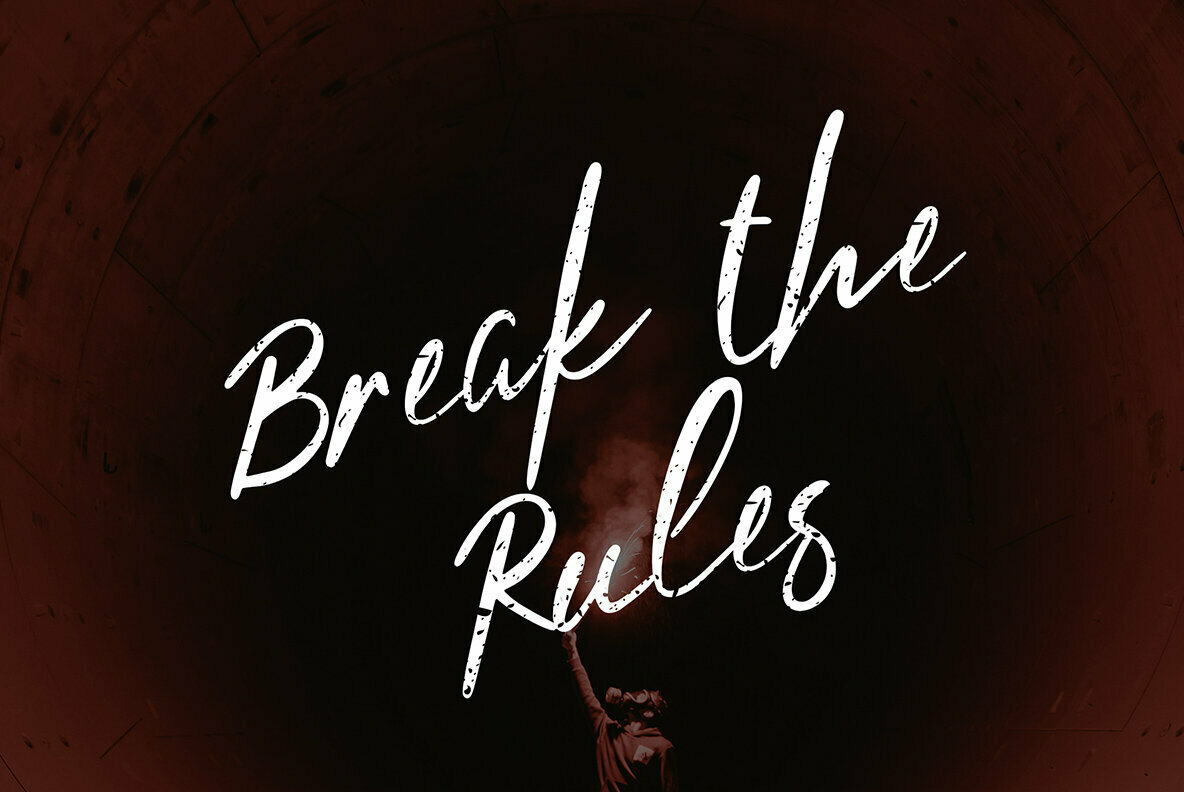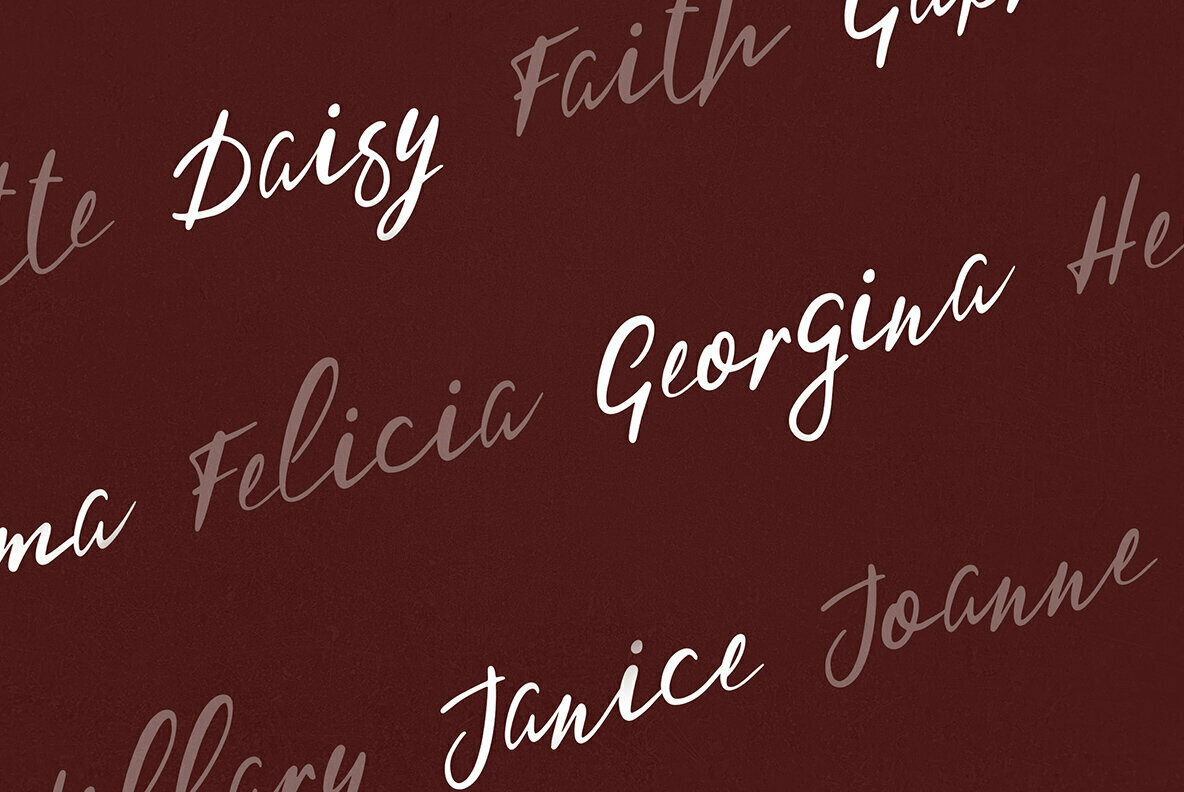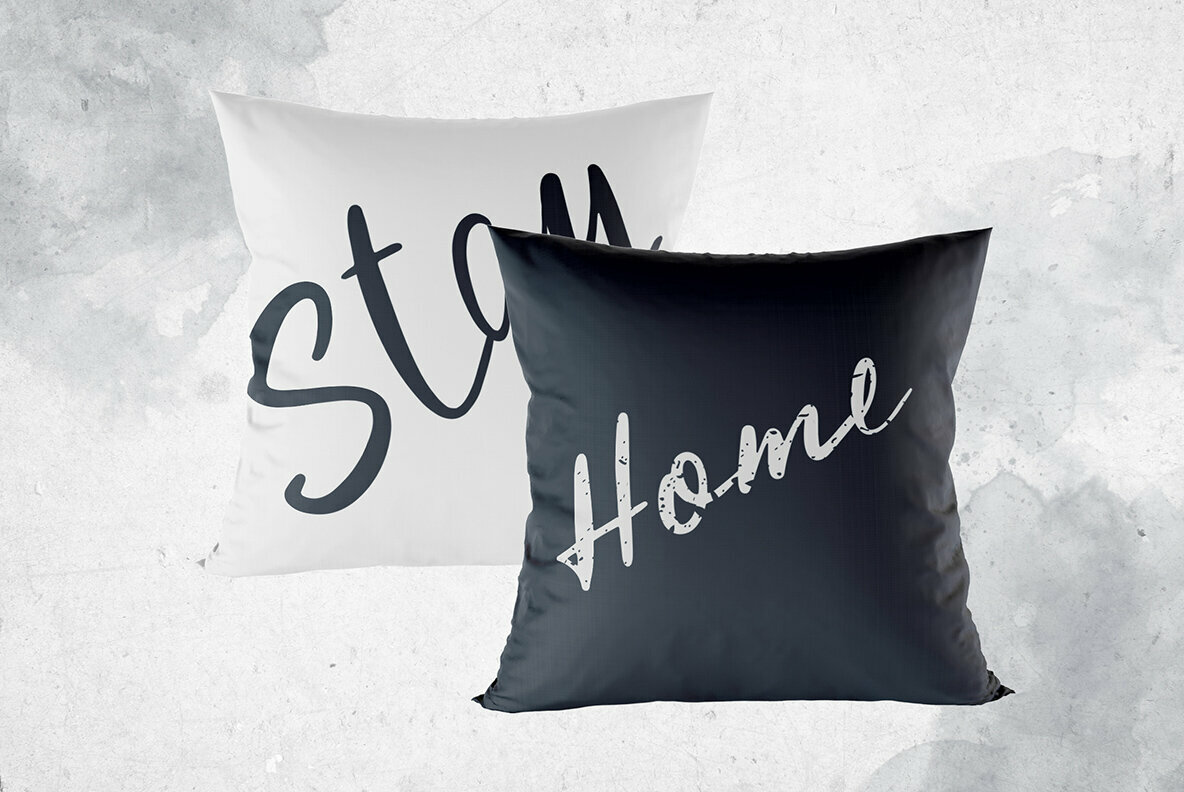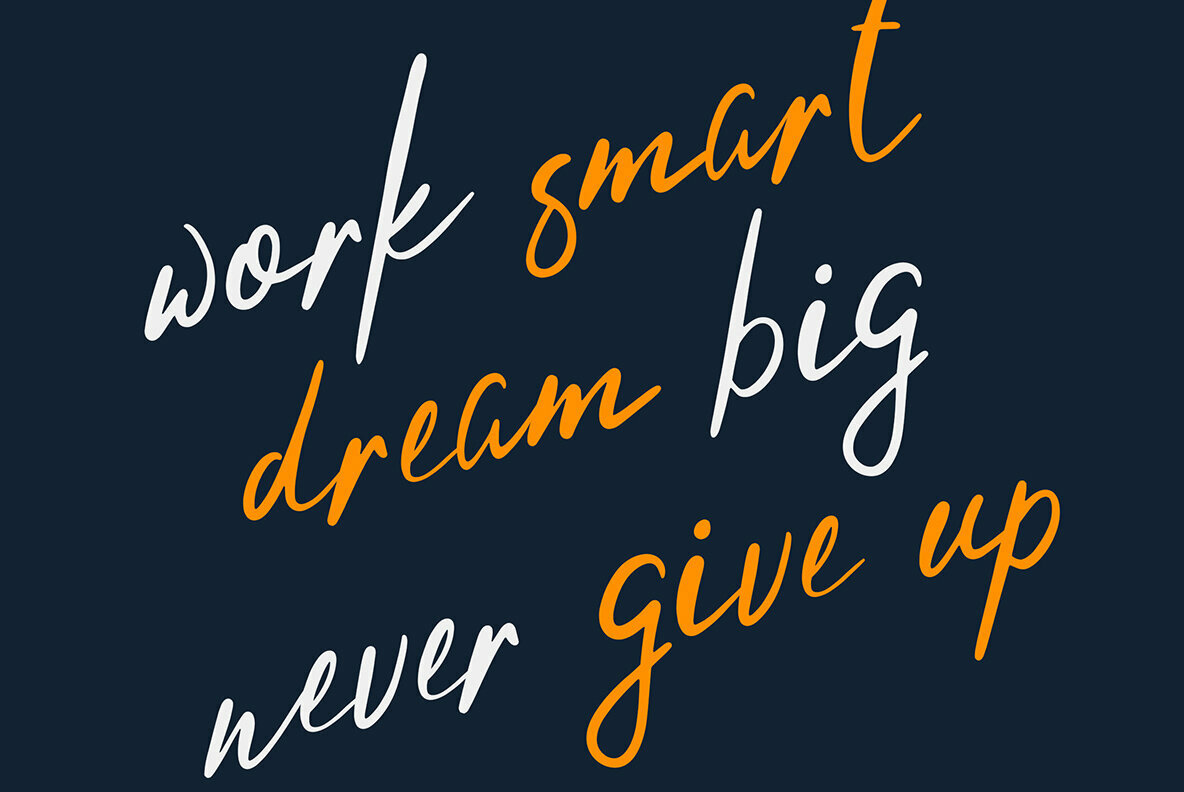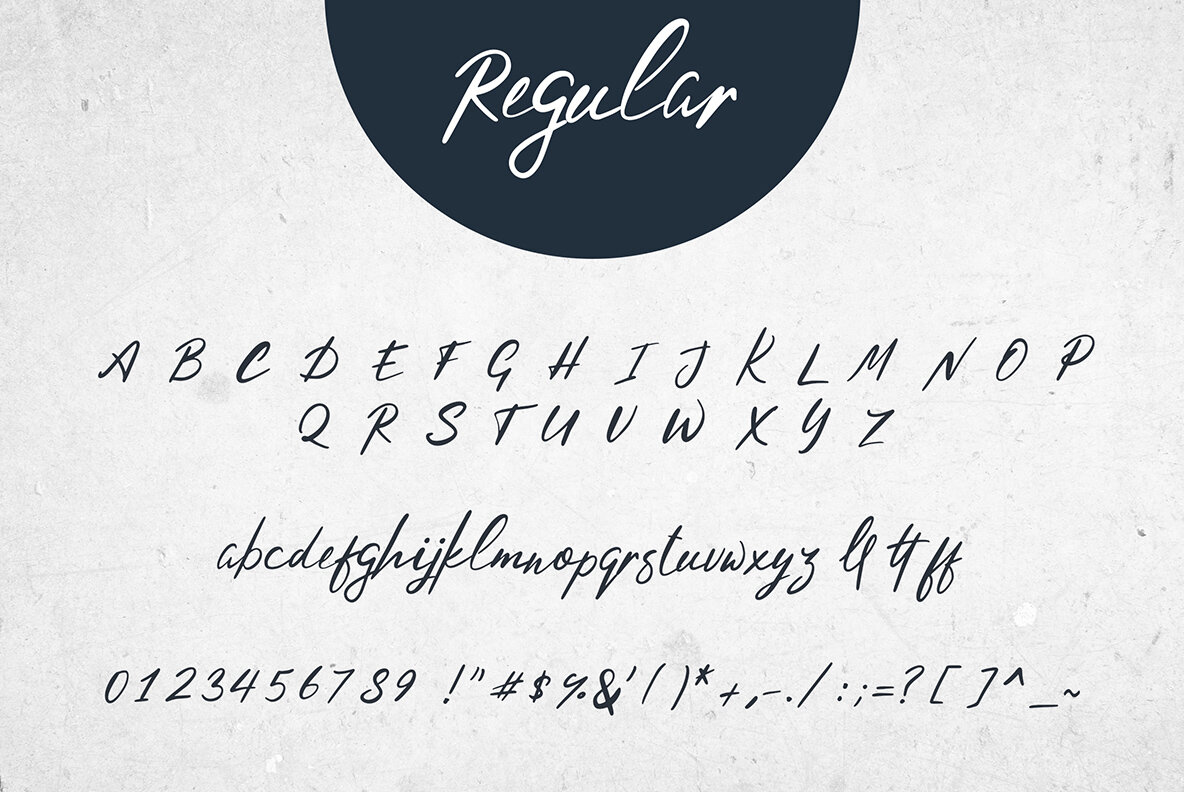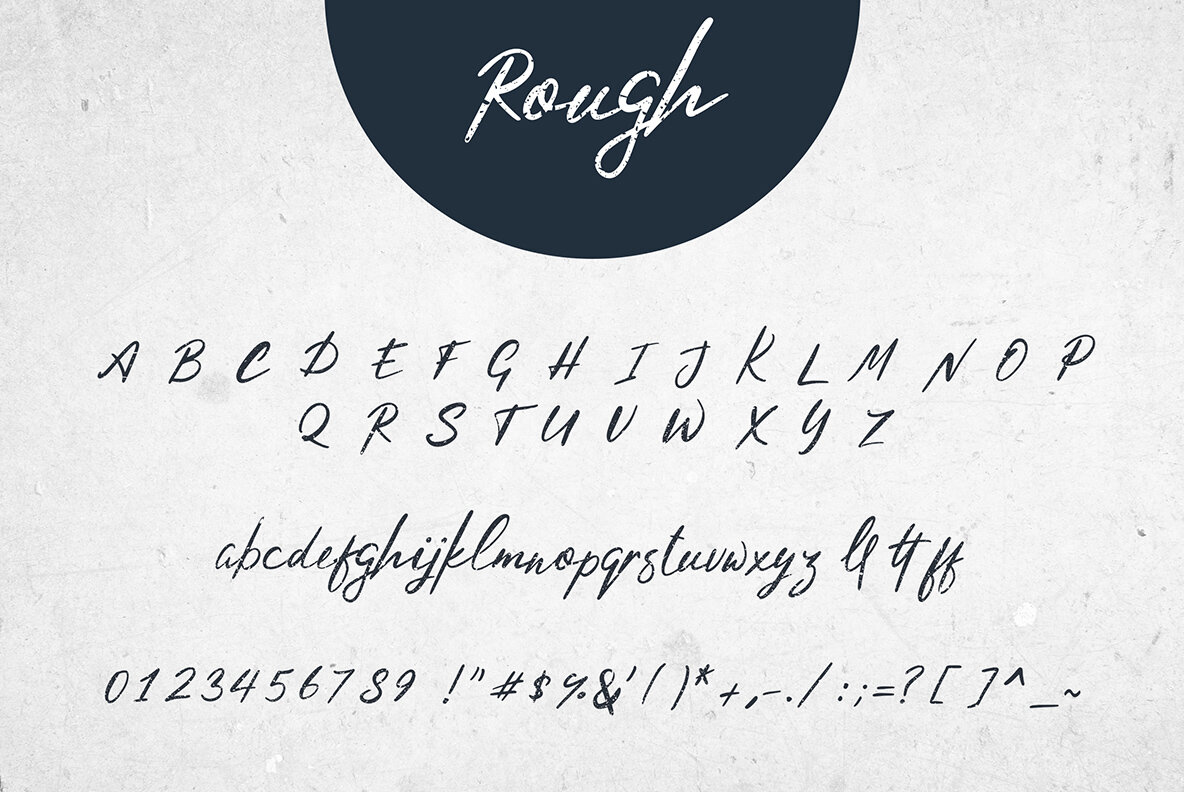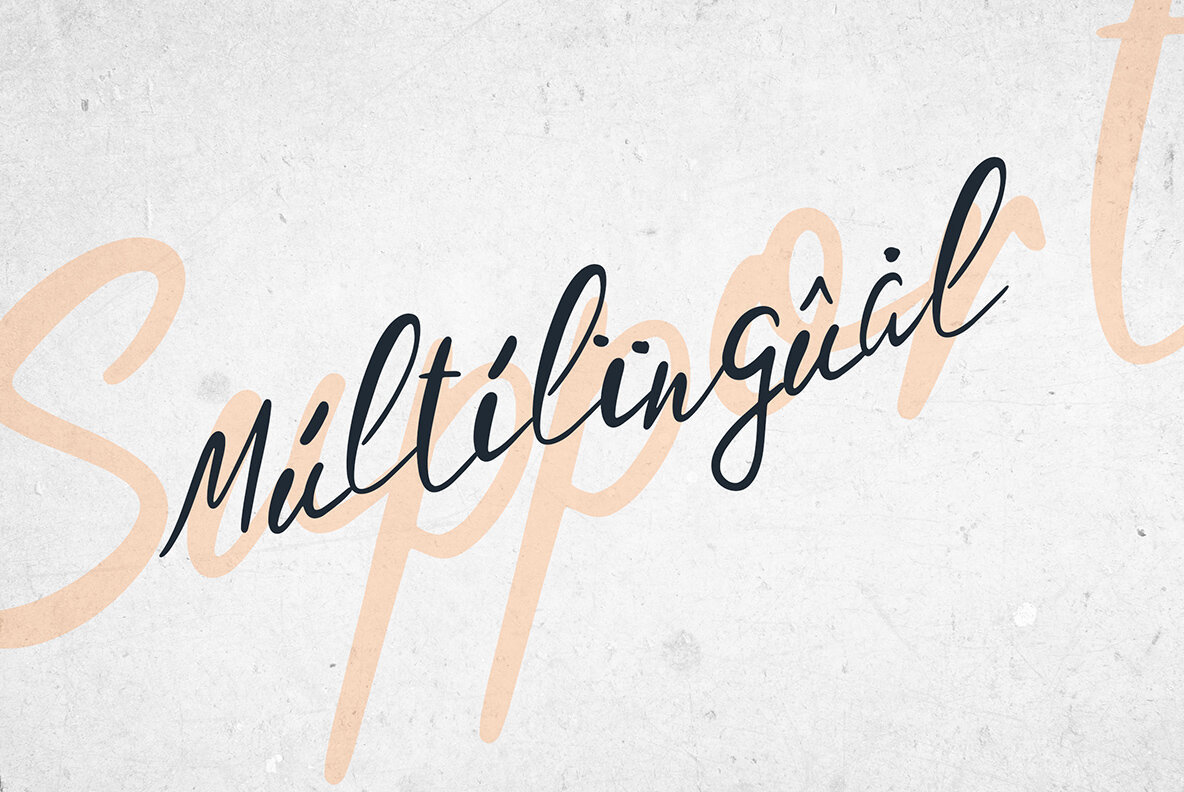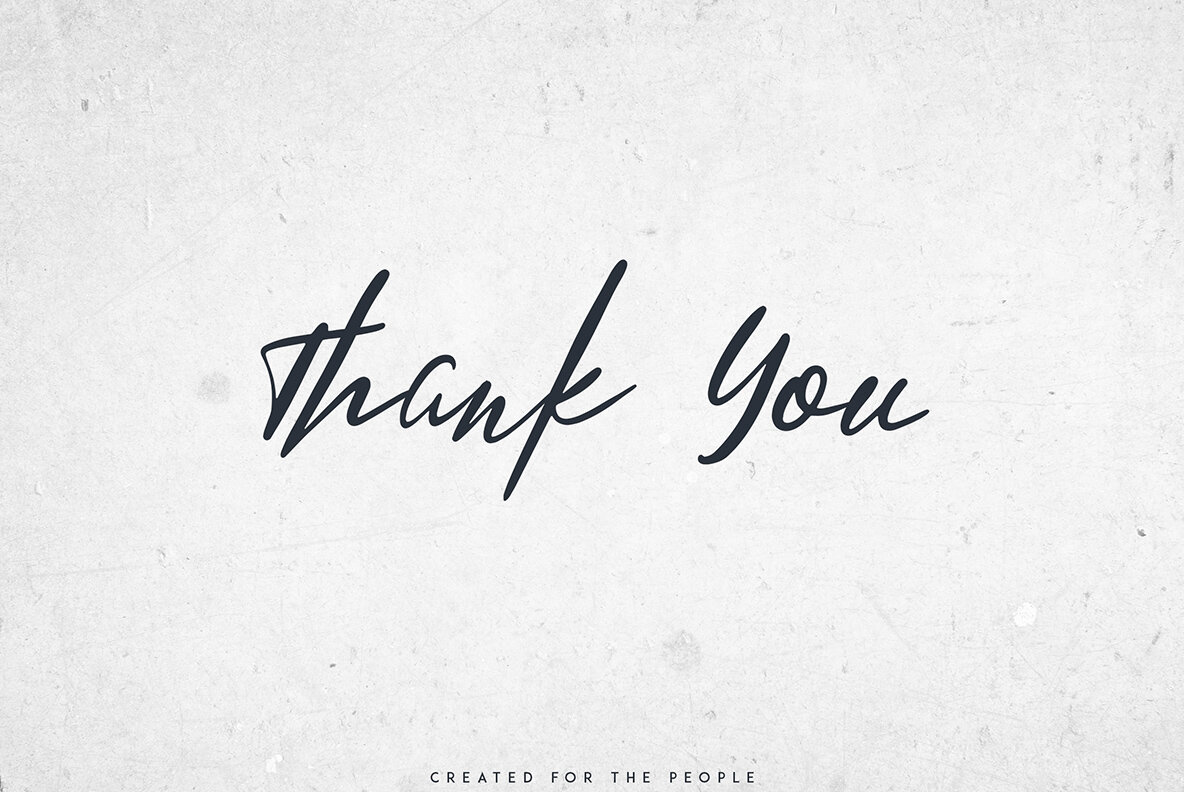
Hysteria Script Font
Hysteria
Hysteria Rough
Hysteria Script offers a clean and sophisticated handwritten style, available in two distinct forms. It effortlessly adapts to various design settings, supported by a wide range of languages, making it a versatile tool for designers seeking a personal touch. This typeface is perfect for branding efforts, product packaging, magazine headers, and home-ware designs. It also excels as a stylish text overlay for various background images, whether used in large or subtle formats.Hysteria Script: Versatile Handwritten Typeface